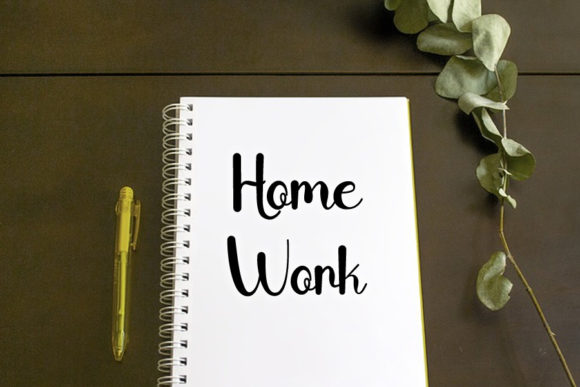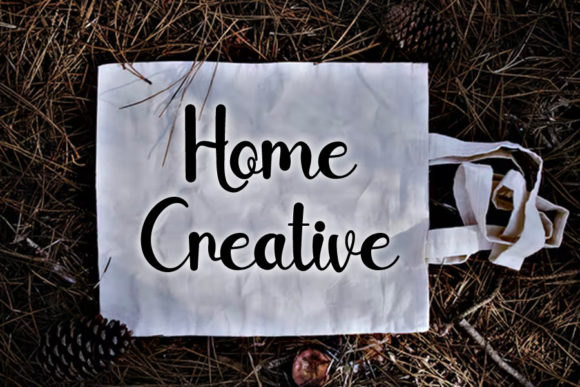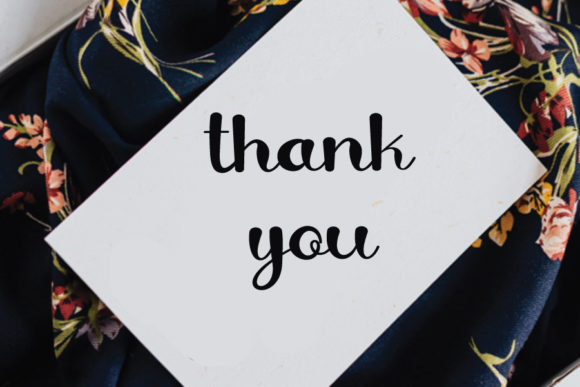
The Perfect Beachside Inspiration for Your Next Design Project
Imagine strolling along a serene beach, feeling the warm sand beneath your feet, and listening to the soothing sound of waves crashing against the shore. The tranquility of the ocean’s breeze is what often sparks creativity in designers. For you, it might be the perfect moment to discover the perfect font to elevate your next design project.
Enter Beach Font, a stunning and elegant font that’s designed to make a lasting impression. Whether you’re creating a captivating YouTube banner, a romantic wedding invitation, or a unique business logo, Beach Font is the perfect companion for your creative endeavors. With its simplicity and uniqueness, this font will help your business stand out and progress. Whether you’re a seasoned designer or a budding artist, Beach Font is sure to be your go-to choice for any design project.
Key Features of Beach Font
- Font Family: A custom-designed font family with a unique, hand-drawn aesthetic, evoking the feeling of beachy vibes.
- Unique Characteristics: Features distinctive, flowing letterforms, and subtle texture elements that resemble sand or sea foam, adding a touch of whimsy to any design.
Beach Font Review
I recently had the chance to work with the Beach Font, and I must say it’s a mixed bag. On one hand, I love the laid-back, summery vibe it brings to any project. ✨ The font is perfect for creating a relaxed, beachy atmosphere, making it ideal for travel websites, summer campaigns, or any project that needs a touch of sunshine. The rounded edges and soft lines give it a friendly, approachable feel that’s hard to resist.
However, there are some limitations to consider. ⚠️ The Beach Font can feel a bit too casual for more formal projects, and the lack of a bold weight can make it difficult to create clear headings or emphasis. Additionally, the font may not be the best choice for projects that require a lot of technical or formal writing, as it can start to feel a bit too playful.
Overall, I think the Beach Font is a great addition to any designer’s toolkit. While it may not be the most versatile font, it’s perfect for projects where a relaxed, beachy vibe is just what’s needed. Just be sure to use it thoughtfully and in context.
- Perfect for: Travel websites, summer campaigns, relaxed branding projects
- Not ideal for: Formal projects, technical writing, projects requiring a lot of emphasis
To get the most out of Beach Font, use it for:
- Summer-themed designs (e.g., beach invitations, summer posters).
- Travel-related designs (e.g., travel brochures, adventure posters).
- Fun and playful designs (e.g., party invitations, social media graphics).